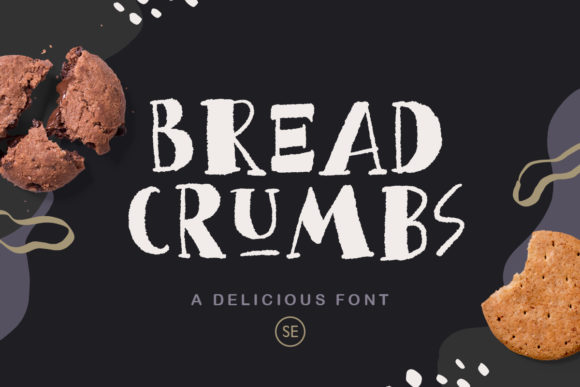
Bread Crumbs Font: The Perfect Addition to Your Design Collection
Are you tired of using the same old fonts in your designs? Look no further than the Bread Crumbs font, a unique and incredibly interesting display font that’s sure to make your creative projects stand out. With its friendly feel and versatile style, Bread Crumbs is the perfect addition to your font collection.
What is Bread Crumbs Font?
Bread Crumbs is a display font that’s designed to add a touch of personality to your designs. Its unique and quirky style is reminiscent of breadcrumbs, hence the name. The font features a friendly and approachable feel, making it perfect for a wide range of contexts, from creative projects to commercial designs.
Key Features of Bread Crumbs Font
- Unique and Quirky Style: Bread Crumbs font has a one-of-a-kind style that’s sure to grab attention.
- Friendly Feel: The font’s friendly feel makes it perfect for designs that require a approachable and welcoming tone.
- Versatile: Bread Crumbs font can be used in a wide range of contexts, from creative projects to commercial designs.
- Easy to Read: Despite its unique style, Bread Crumbs font is easy to read, making it perfect for headlines, titles, and other display text.
How to Use Bread Crumbs Font in Your Designs
Bread Crumbs font is incredibly versatile, making it perfect for a wide range of design projects. Here are a few ideas to get you started:
- Creative Projects: Use Bread Crumbs font to add a touch of personality to your creative projects, such as art, crafts, and DIY tutorials.
- Commercial Designs: Add a friendly and approachable tone to your commercial designs, such as logos, brochures, and advertisements.
- Digital Designs: Use Bread Crumbs font in your digital designs, such as social media graphics, blog posts, and website headers.
Benefits of Using Bread Crumbs Font
Using Bread Crumbs font in your designs can have a number of benefits, including:
- Increased Creativity: The unique and quirky style of Bread Crumbs font can help inspire creativity and add a fresh perspective to your designs.
- Improved Readability: Despite its unique style, Bread Crumbs font is easy to read, making it perfect for display text.
- Enhanced Brand Identity: Using Bread Crumbs font in your designs can help create a consistent and recognizable brand identity.
Tips for Getting the Most Out of Bread Crumbs Font
Here are a few tips for getting the most out of Bread Crumbs font:
- Experiment with Different Sizes: Bread Crumbs font looks great in a variety of sizes, from small headlines to large display text.
- Pair with Other Fonts: Try pairing Bread Crumbs font with other fonts to create a unique and interesting contrast.
- Use in Combination with Images: Use Bread Crumbs font in combination with images to create visually appealing and engaging designs.
In conclusion, Bread Crumbs font is a unique and incredibly interesting display font that’s sure to make your creative projects stand out. With its friendly feel and versatile style, Bread Crumbs is the perfect addition to your font collection. Whether you’re a designer, crafter, or DIY enthusiast, Bread Crumbs font is a must-have for any creative project.